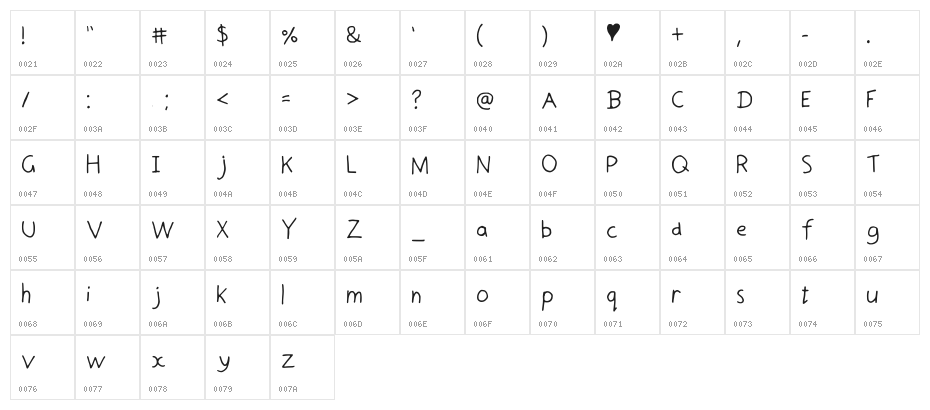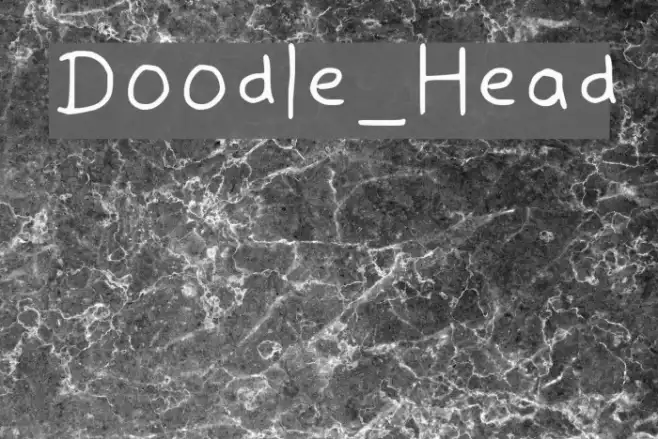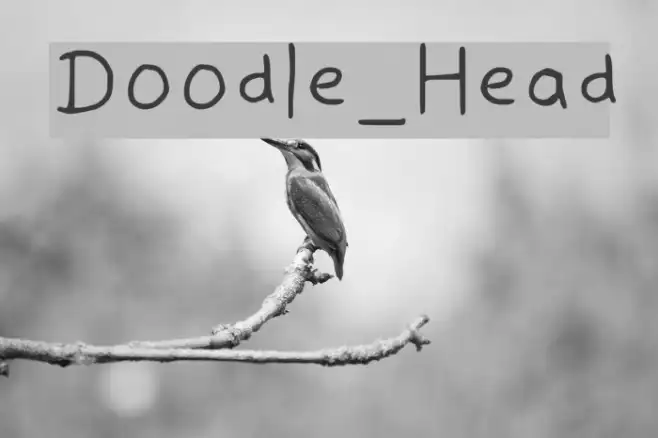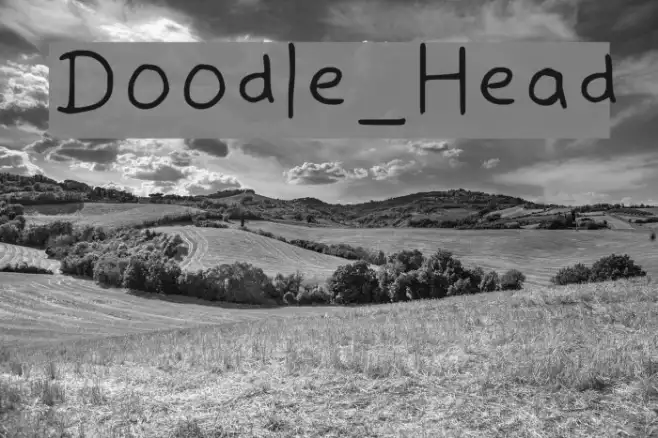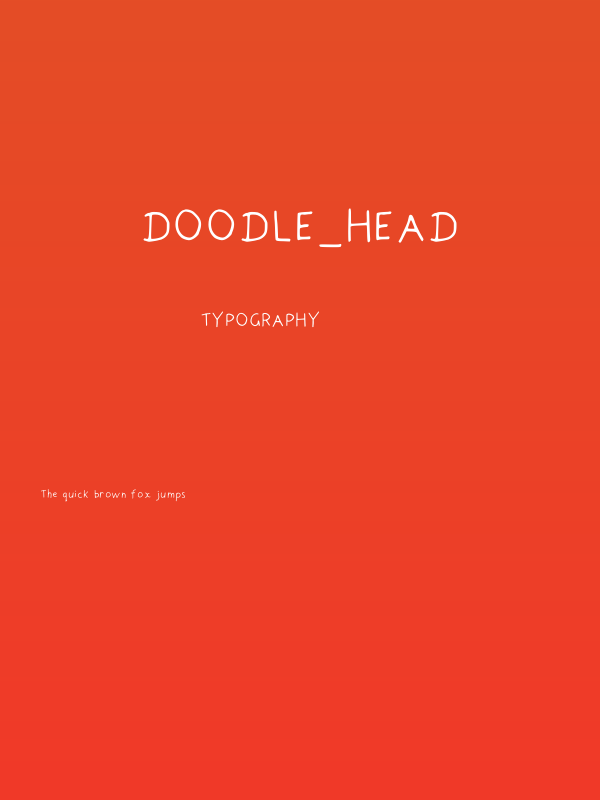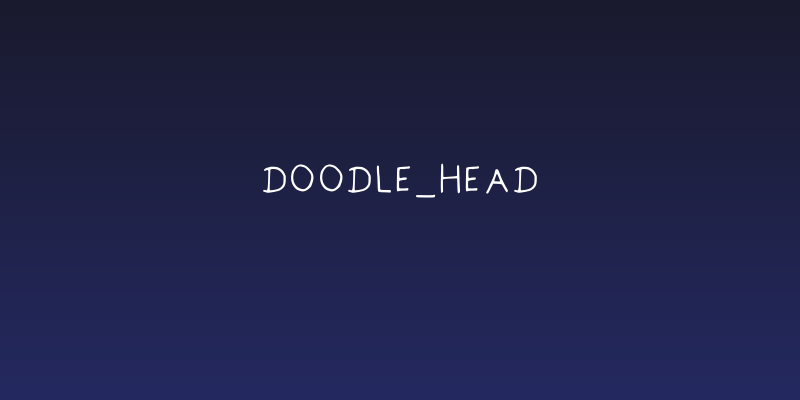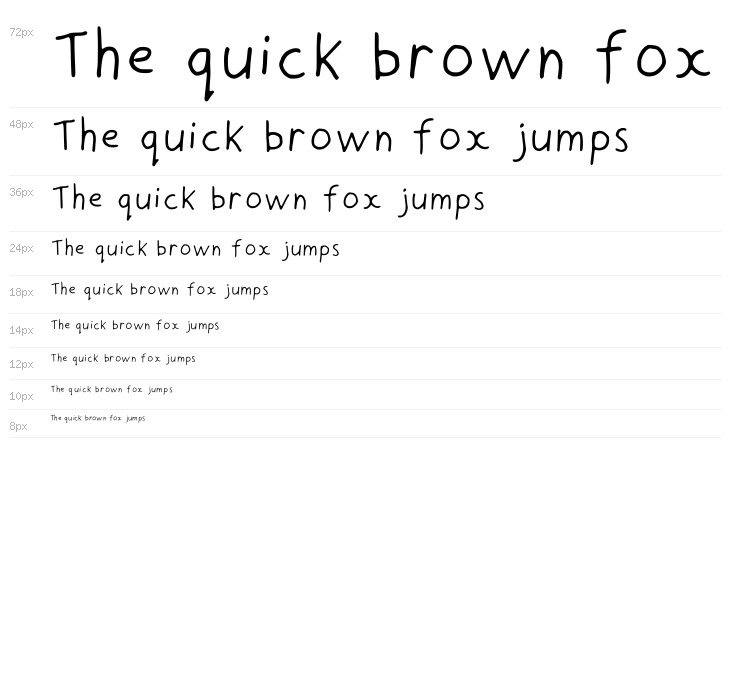
Doodle_Head Font
Doodle_Head Description
This playful and whimsical font features a hand-drawn aesthetic that exudes a casual and friendly vibe. The characters are slightly irregular, giving them a unique and personal touch. The strokes are consistent in width, contributing to a harmonious appearance. The uppercase and lowercase letters maintain a cohesive style, while the numerals and special characters complement the overall design. This font's informal nature makes it suitable for projects that require a touch of creativity and approachability.
| Proposed Projects | Ideal for children's books, greeting cards, casual branding, and creative projects. |